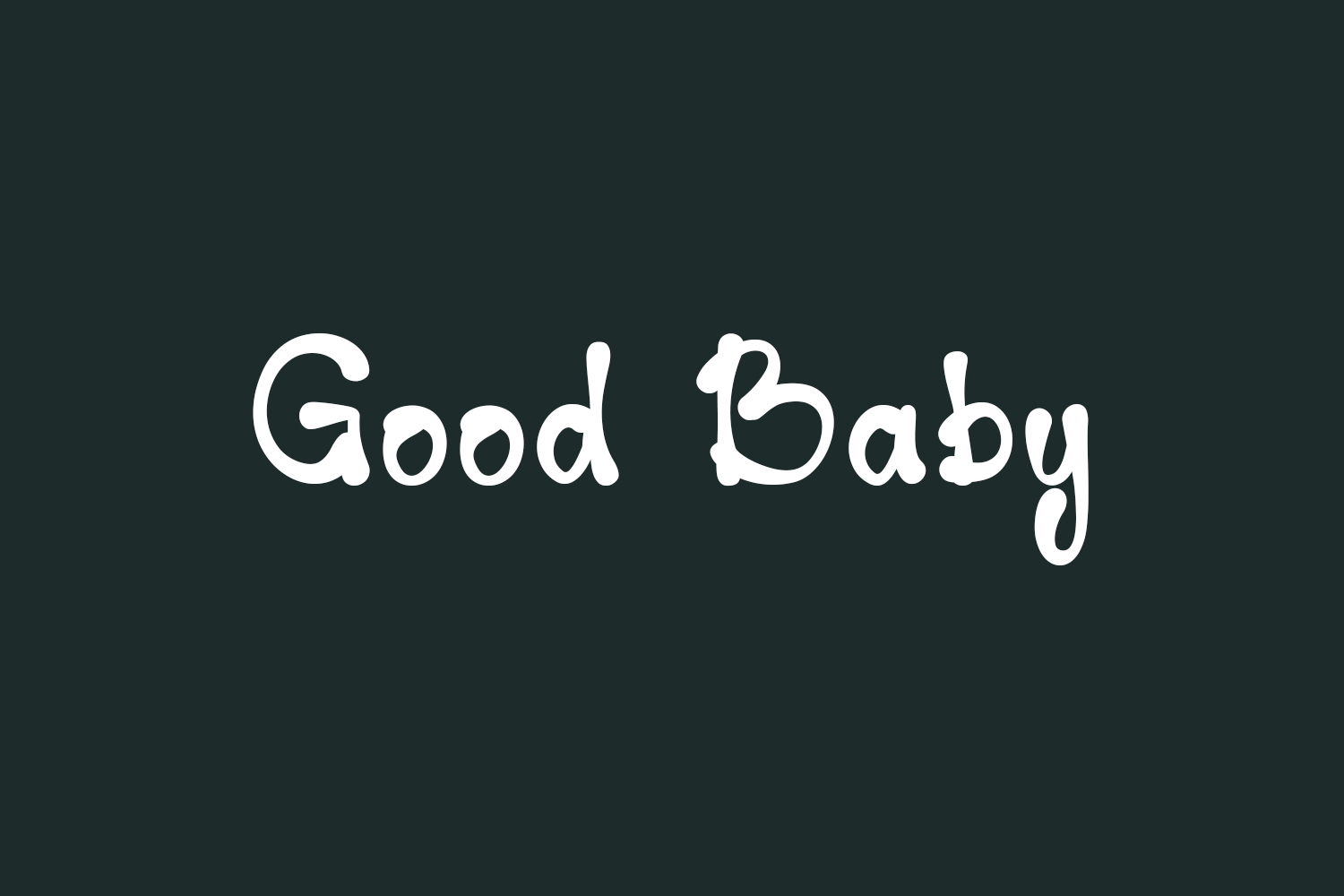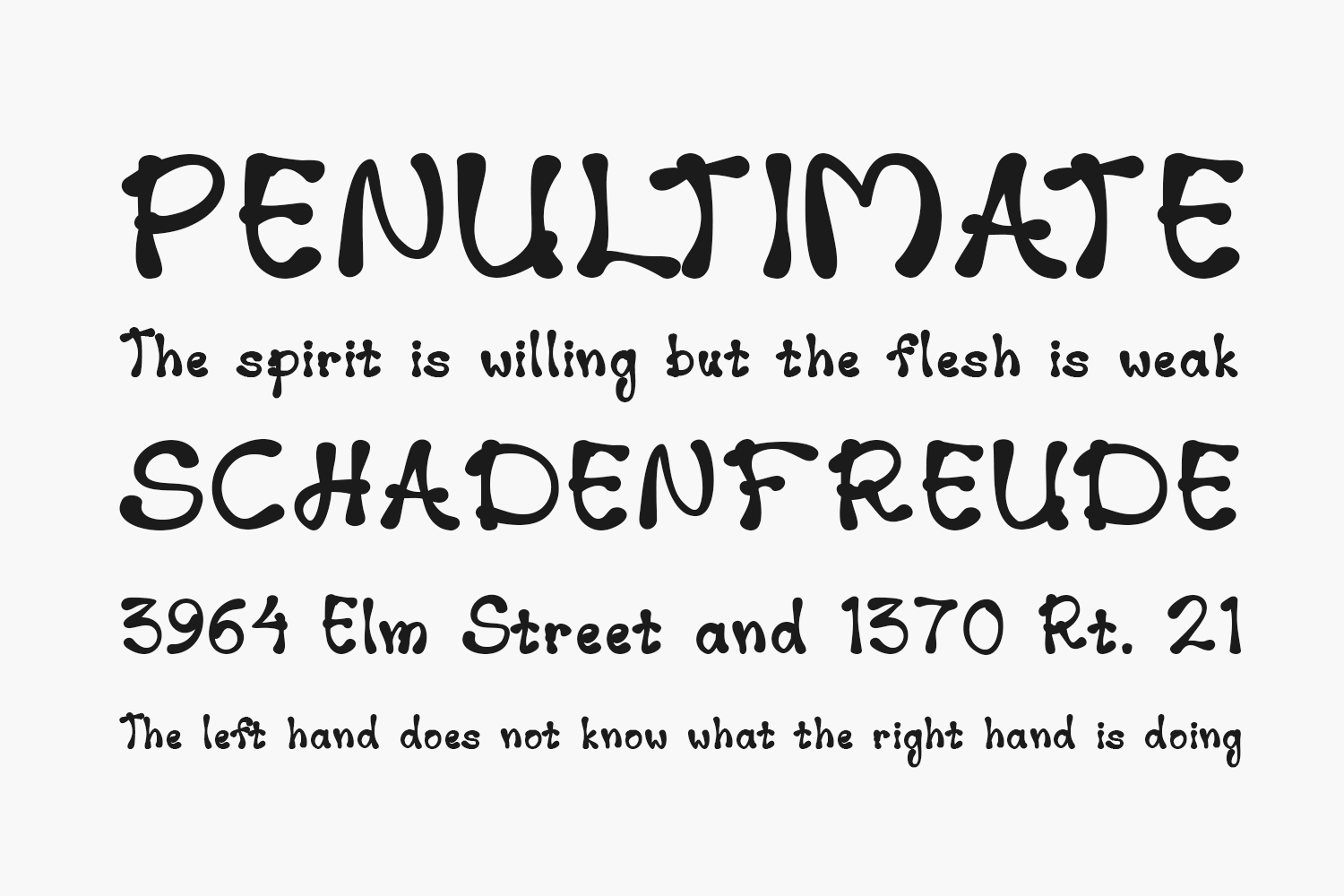
Good Baby Free Font is a sweet, joyful and round lettered handwritten font. Add it to your most creative ideas and notice how it makes them come alive. Good Baby Free Font is free for personal use only. Please purchase the full version for commercial use.